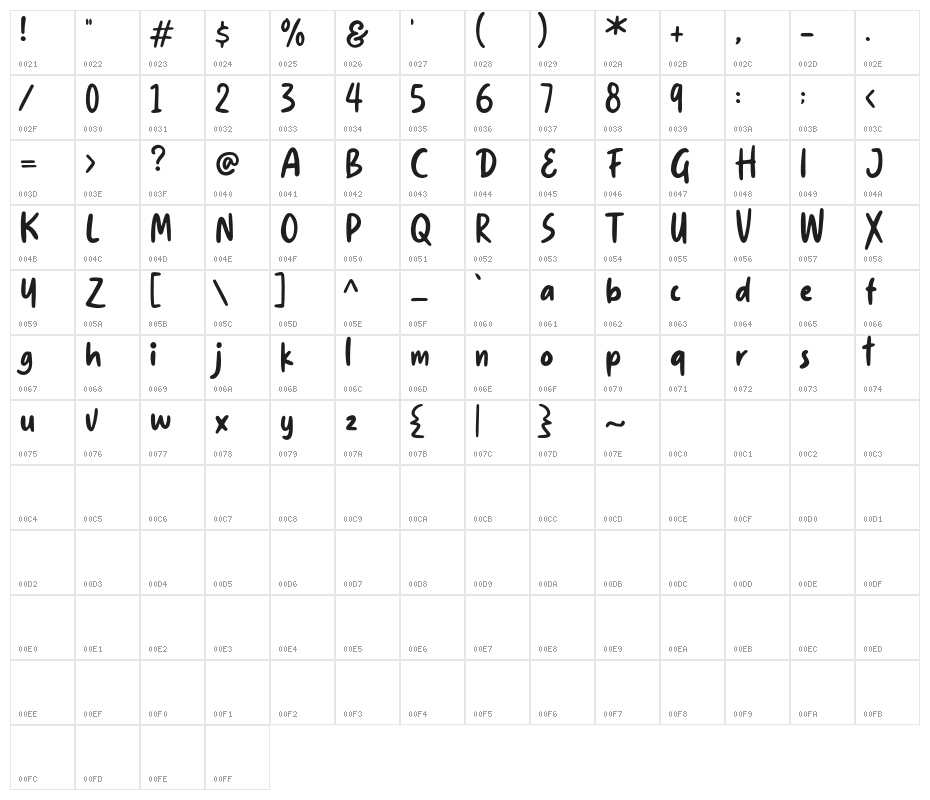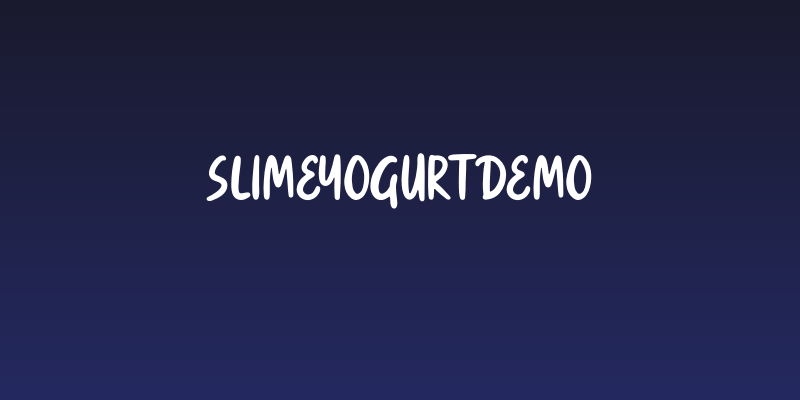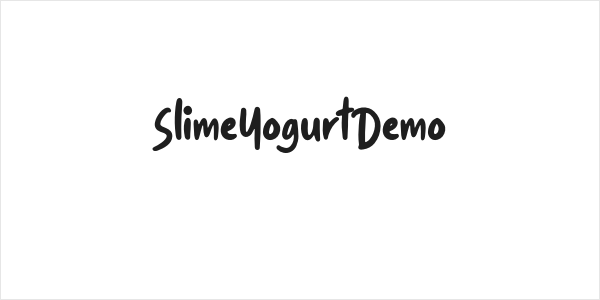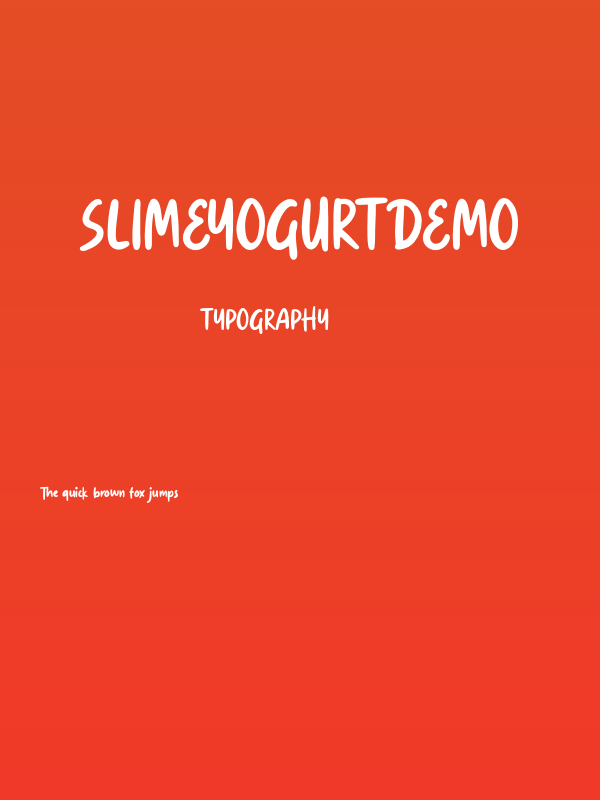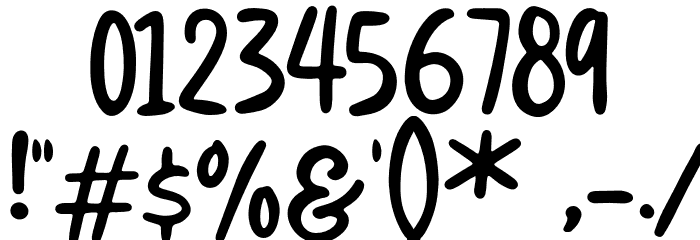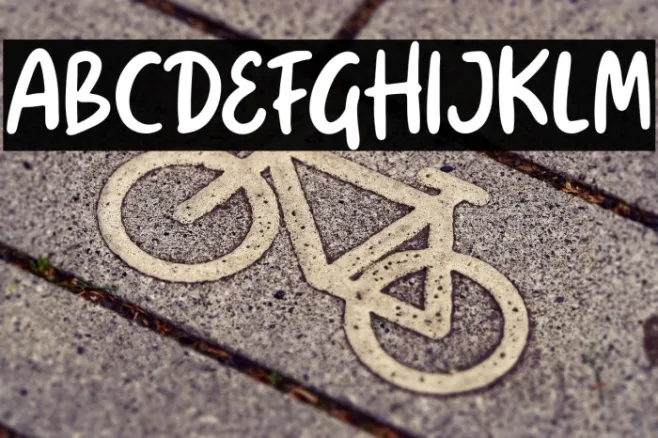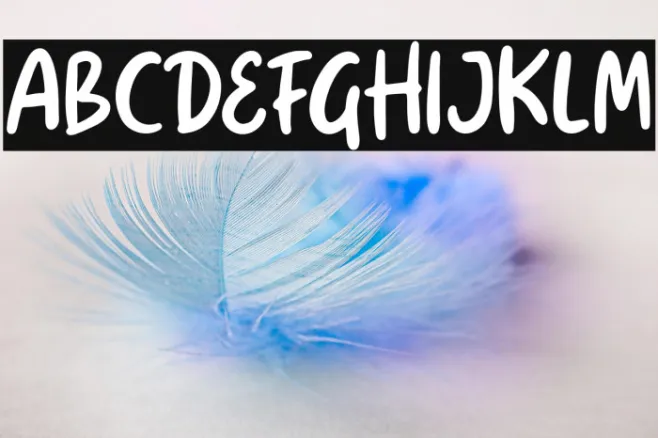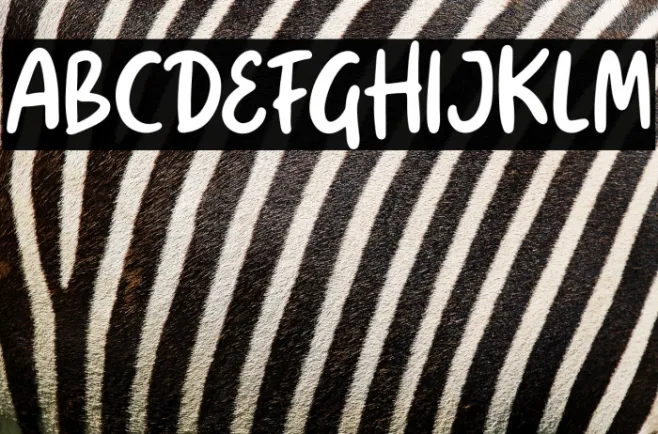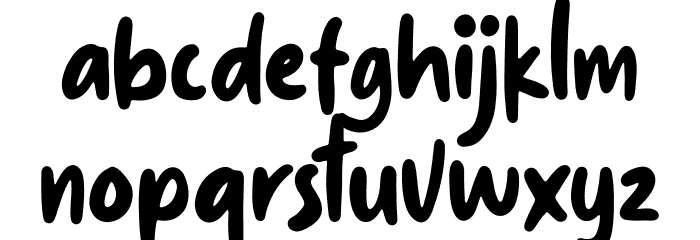
SlimeYogurtDemo Font
SlimeYogurtDemo Description
This playful and energetic font features bold, rounded characters with a hand-drawn aesthetic. The letters are slightly irregular, giving a casual and friendly vibe. The uppercase and lowercase letters maintain a consistent style, with a smooth flow and rounded edges. Numbers and special characters are equally expressive, maintaining the font's lively personality. The overall appearance is informal and approachable, making it suitable for creative and fun projects.
| Proposed Projects | Ideal for children's books, playful branding, casual invitations, and creative social media graphics. |